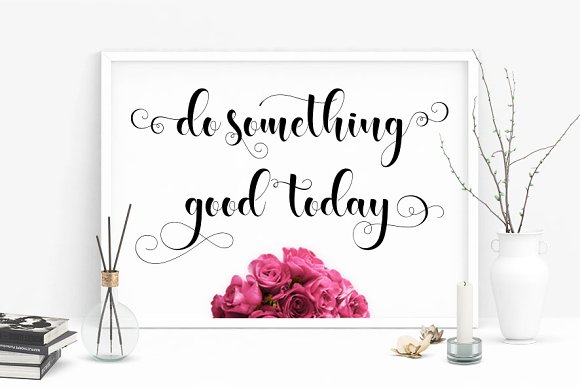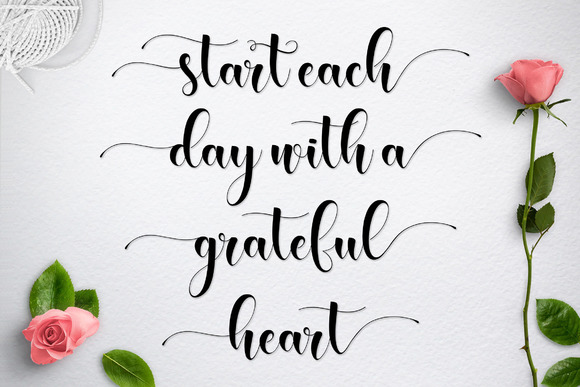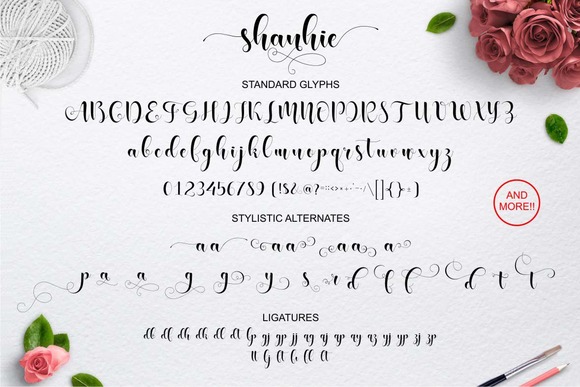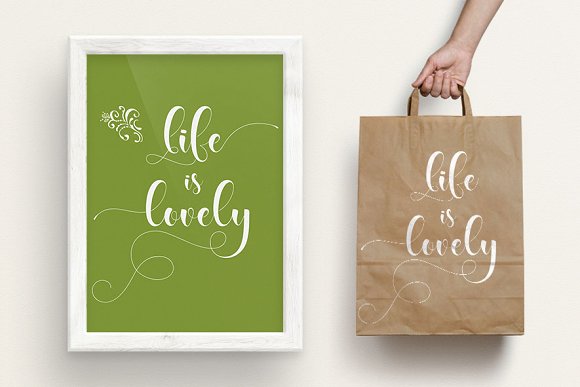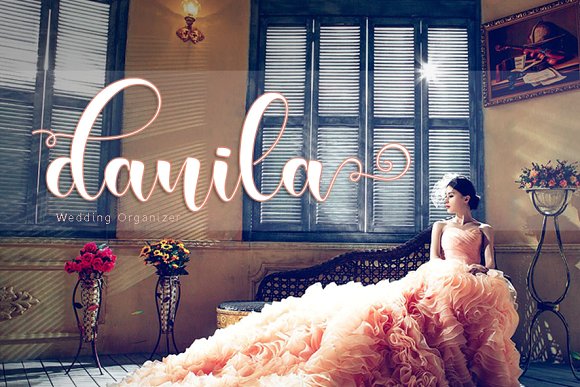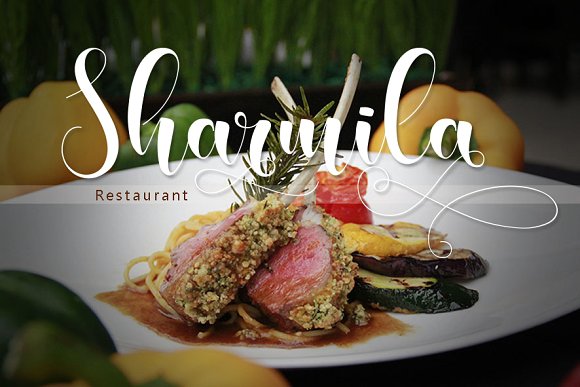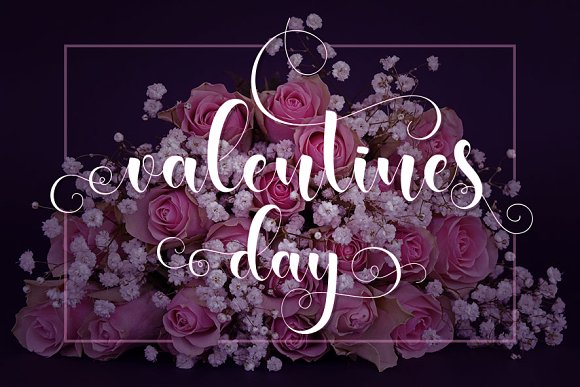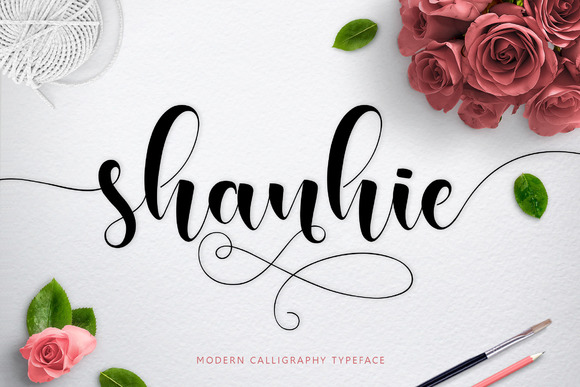
Shanhie Script Font
Shanhie Script a new fresh & modern script with a handmade calligraphy style, decorative characters and a dancing baseline! So beautiful on invitation like greeting cards, branding materials, business cards, quotes, posters, and more !
Shanhie Script come with 490+ glyphs. The alternative characters were divided into several Open Type features such as Swash, Stylistic Sets, Stylistic Alternates, Contextual Alternates. The Open Type features can be accessed by using Open Type savvy programs such as Adobe Illustrator, Adobe InDesign, Adobe Photoshop Corel Draw X version, And Microsoft Word. And this Font has given PUA unicode (specially coded fonts). so that all the alternate characters can easily be accessed in full by a craftsman or designer.